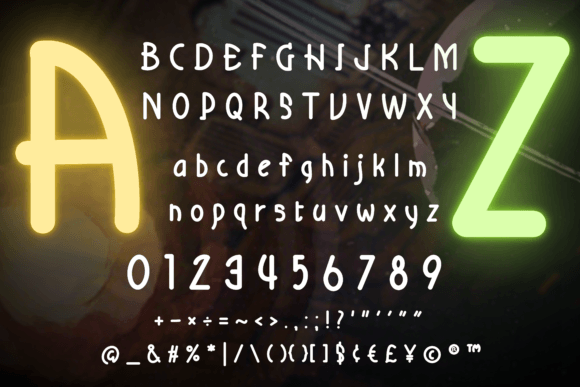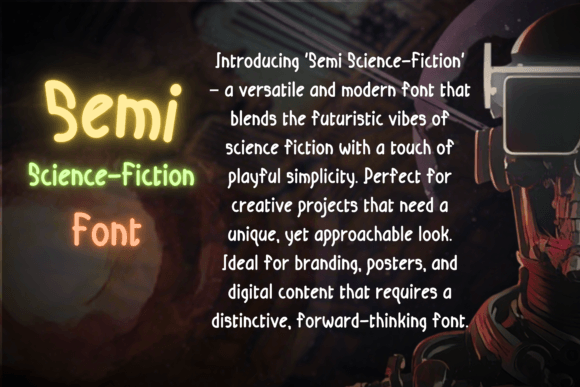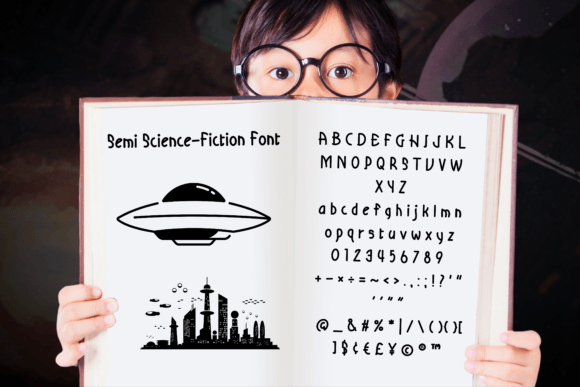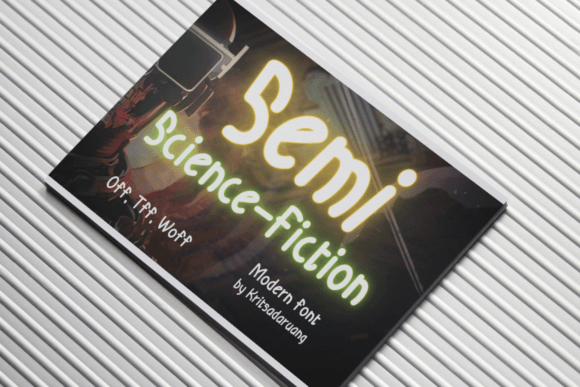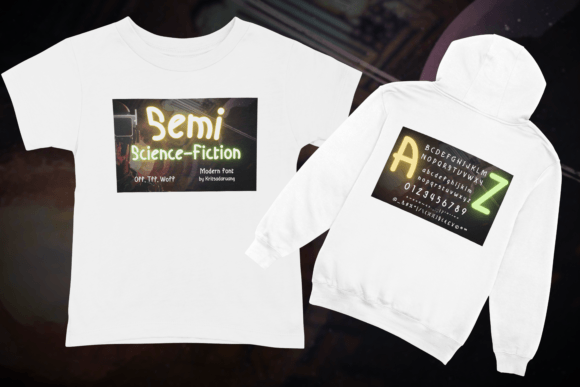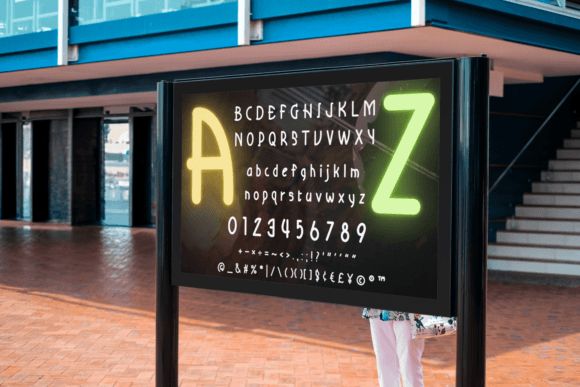
Introduction to Semi Science-fiction Font
Introducing ‘Semi Science-Fiction’ – a versatile and modern font that blends the futuristic vibes of science fiction with a touch of playful simplicity.
Perfect for creative projects that need a unique, yet approachable look Ideal for branding, posters, and digital content that requires a distinctive, forward-thinking font.
Key Features of Semi Science-fiction Font
Why Choose Semi Science-fiction Font?
Semi Science-fiction Font offers exceptional quality and versatility, making it a valuable addition to your design toolkit. Whether you’re creating for personal projects or commercial use, Semi Science-fiction Font delivers professional results.